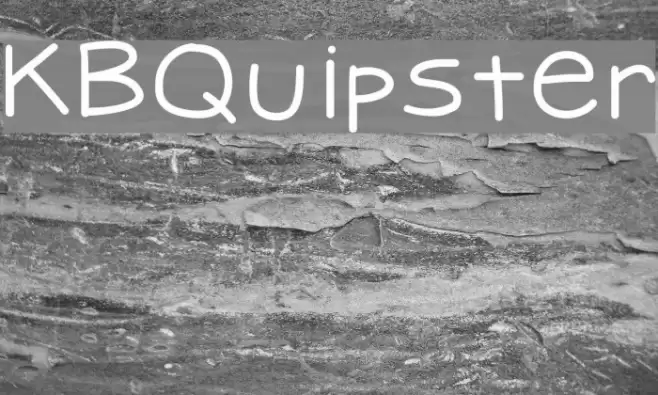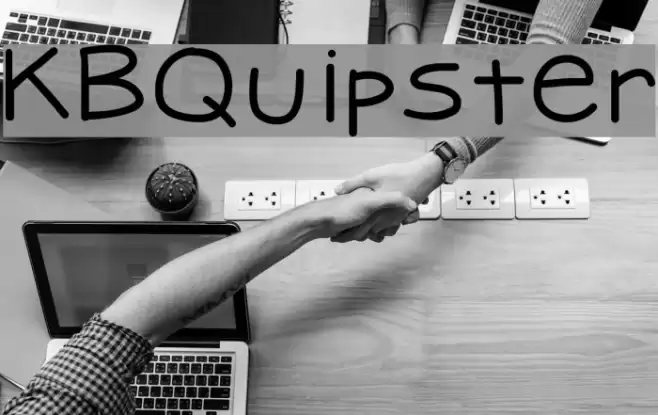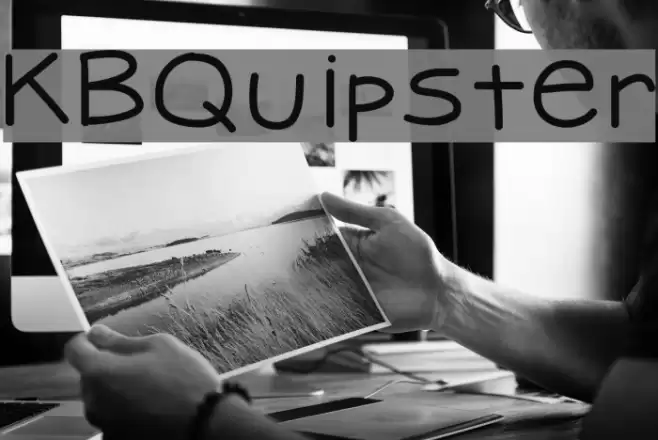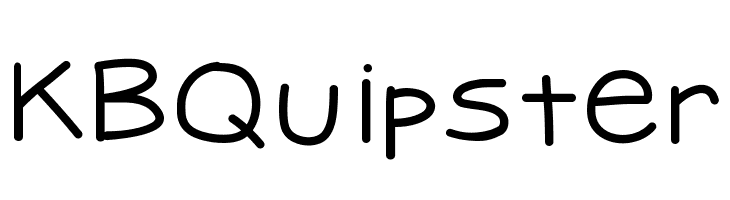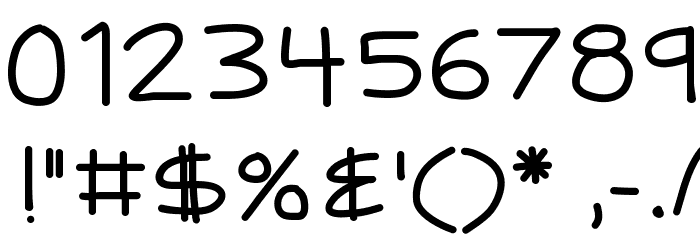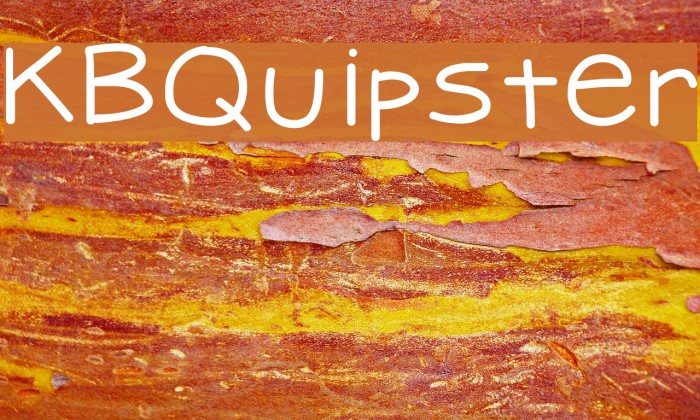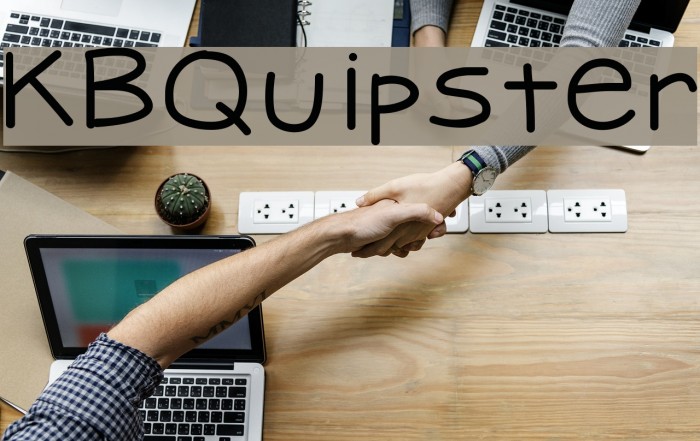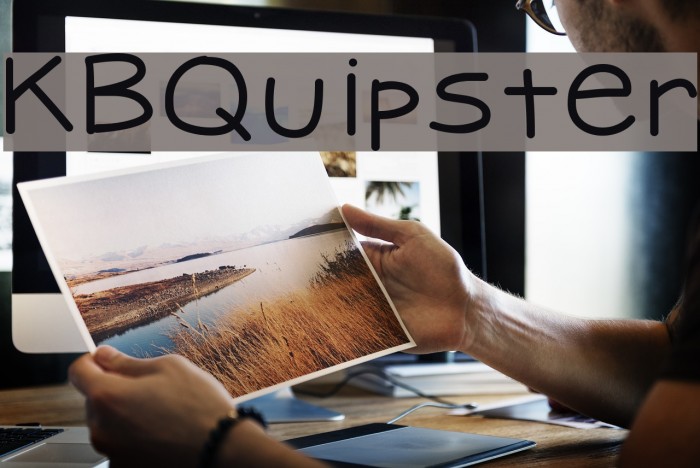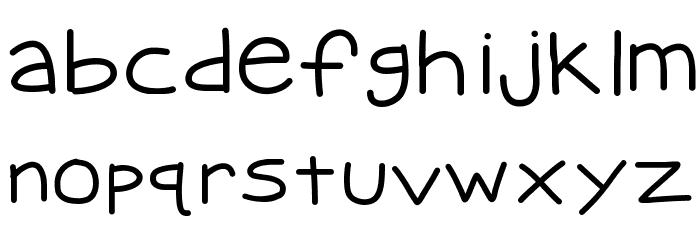
KBQuipster Font
KBQuipster Description
This playful and informal font features a handwritten style with rounded edges and a casual feel. The characters are slightly irregular, giving it a friendly and approachable appearance. The uppercase and lowercase letters maintain a consistent style, with the lowercase letters being slightly smaller and more compact. Numbers and special characters are designed to match the overall aesthetic, with a similar rounded and informal look. The font's simplicity and charm make it suitable for a variety of creative projects.
A playful, handwritten font with rounded edges and an informal style from Uncategorized fonts.
- Proposed Projects: Ideal for children's books, greeting cards, casual invitations, and playful branding.
- Overall Style: Casual
- Use Case: Headlines, Logos, Informal Text